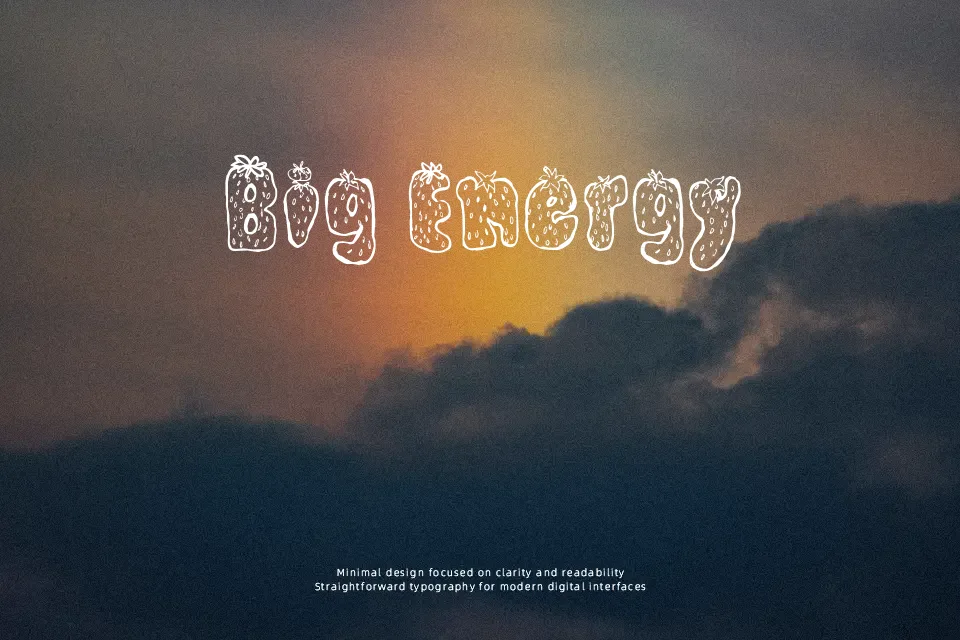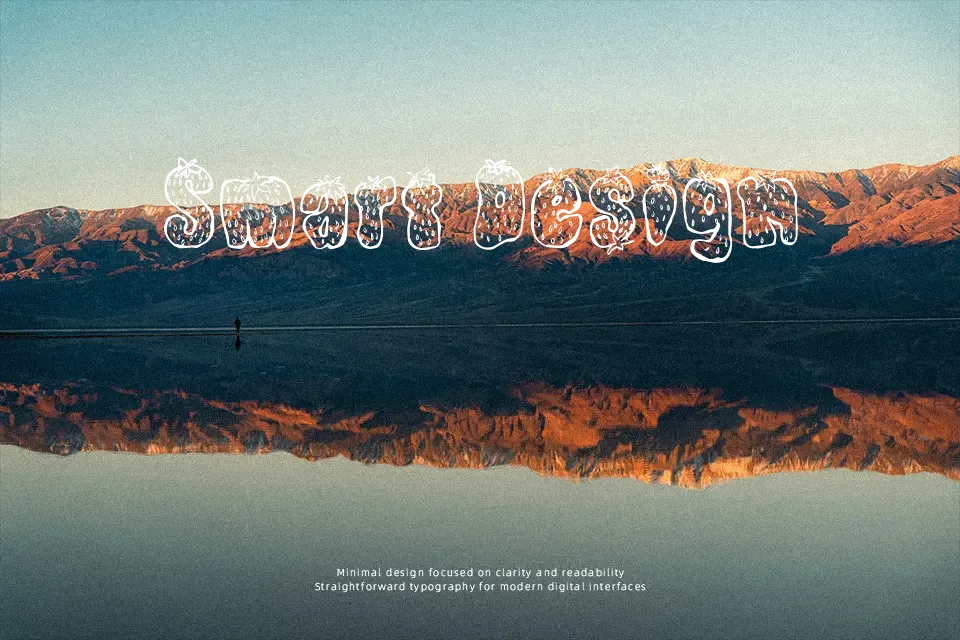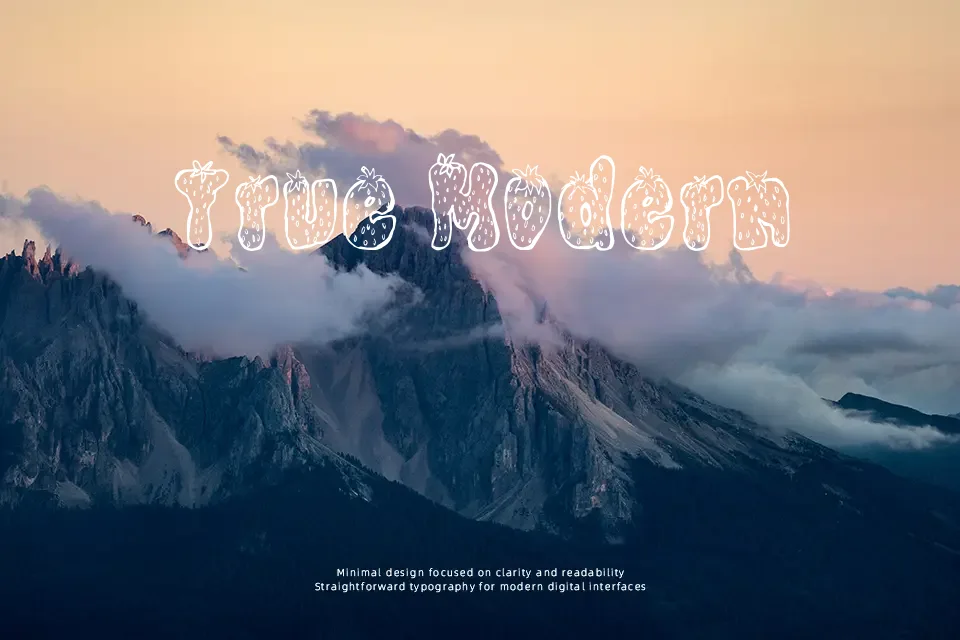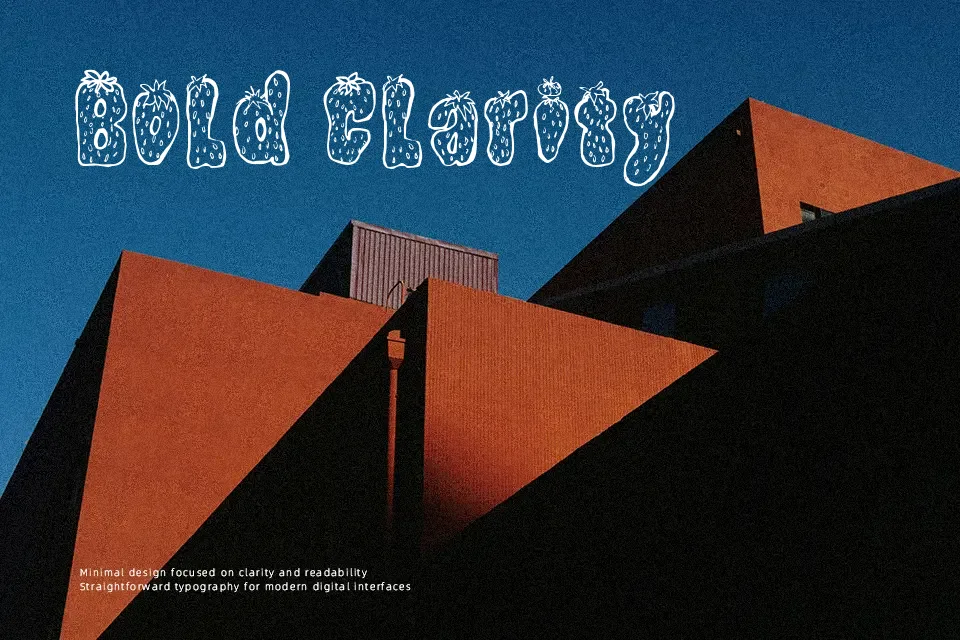
Strawberry Font
Strawberry uses decorative, rounded letterforms with a lively display-focused character. The visible alphabet combines broad proportions, smooth curved strokes, and expressive details that give short words a casual, playful rhythm. Spacing appears most effective when the type is given room in a headline, label, or invitation rather than compressed into dense copy. Its forms remain recognizable at larger sizes, where the individual shapes can be appreciated more easily. For practical use, it works best as an accent typeface; the decorative construction is less comfortable for small text and continuous reading.
Best For: party invitation headings,children’s product labels,playful poster titles,short packaging text
Perfect for headline, invitation, and kids, with a creative and decorative style.